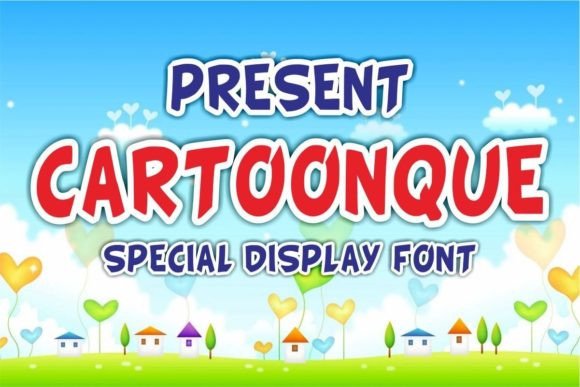
The Ultimate Guide to Cartoonque Font: Adding a Touch of Whimsy to Your Designs
Have you ever been working on a project, and suddenly, you’re stuck on finding the perfect font? I recall a recent experience where I was designing an animated ad for a children’s cartoon show. My client wanted a font that was playful, modern, and fun. After hours of searching, I stumbled upon Cartoonque Font, and it instantly became the top choice for the project. In this article, we’ll dive into the world of Cartoonque Font, exploring its features, uses, and everything in between.
What is Cartoonque Font?
Cartoonque is a modern cartoon-style display font that boasts a contemporary style and casual feel. Its unique charm makes it an excellent addition to any design project that requires a touch of playfulness. Whether you’re working on animated ads, children’s cartoons, T-shirts, labels, posters, or more, Cartoonque Font is sure to impress.
- ✅ Unique and playful design that grabs attention
- ✅ Highly versatile and suitable for various design projects
- ✅ Easy to read, even in smaller font sizes
- ✅ Extensive character set, including glyphs and stylistic alternates
- ⚠️ Might not be suitable for formal or professional designs, as it has a distinctly playful tone
- ⚠️ Some users may find the font too casual or childish for certain projects
The Story Behind Cartoonque Font
Cartoonque Font was designed with the intention of creating a modern, playful font that captures the essence of contemporary cartoons. The designer aimed to create a font that’s both fun and versatile, suitable for a wide range of design projects. With its unique charm and extensive character set, Cartoonque Font has become a popular choice among designers and crafters.
Q: What type of designs is Cartoonque Font best suited for?
A: Cartoonque Font is perfect for designs that require a playful, modern touch, such as animated ads, children’s cartoons, T-shirts, labels, posters, and more.